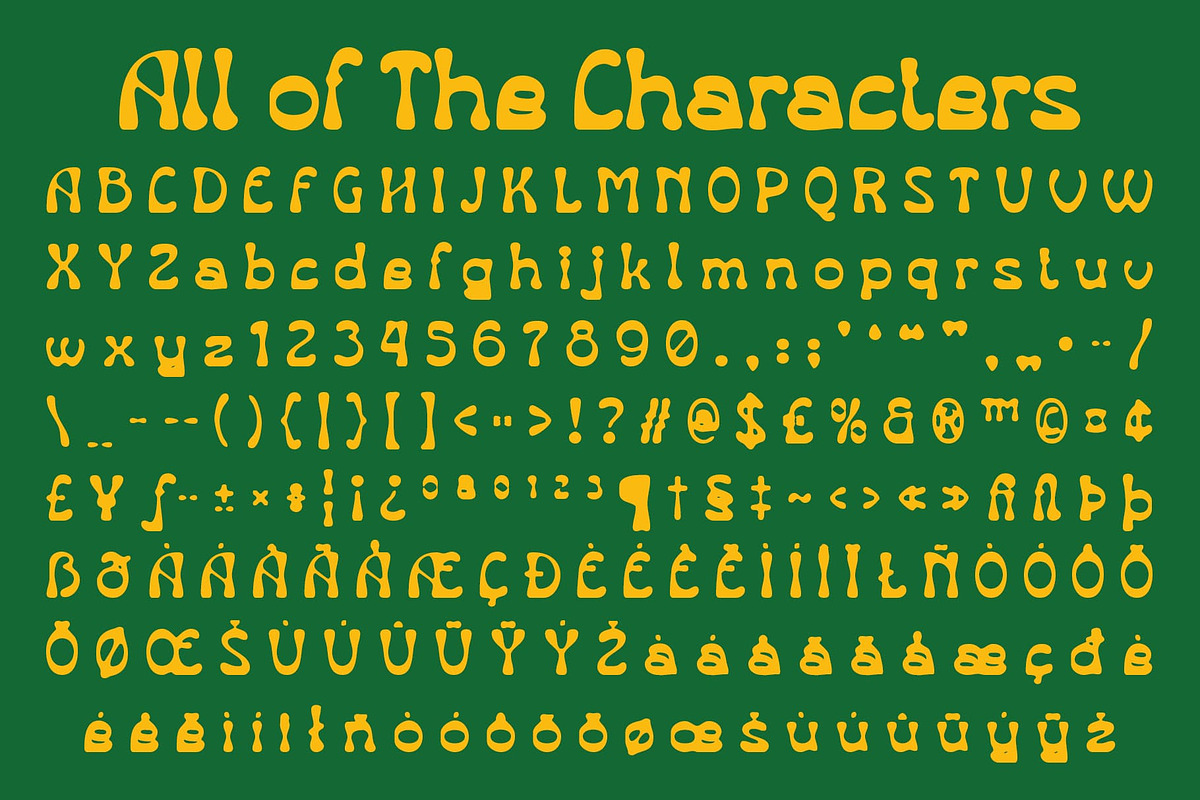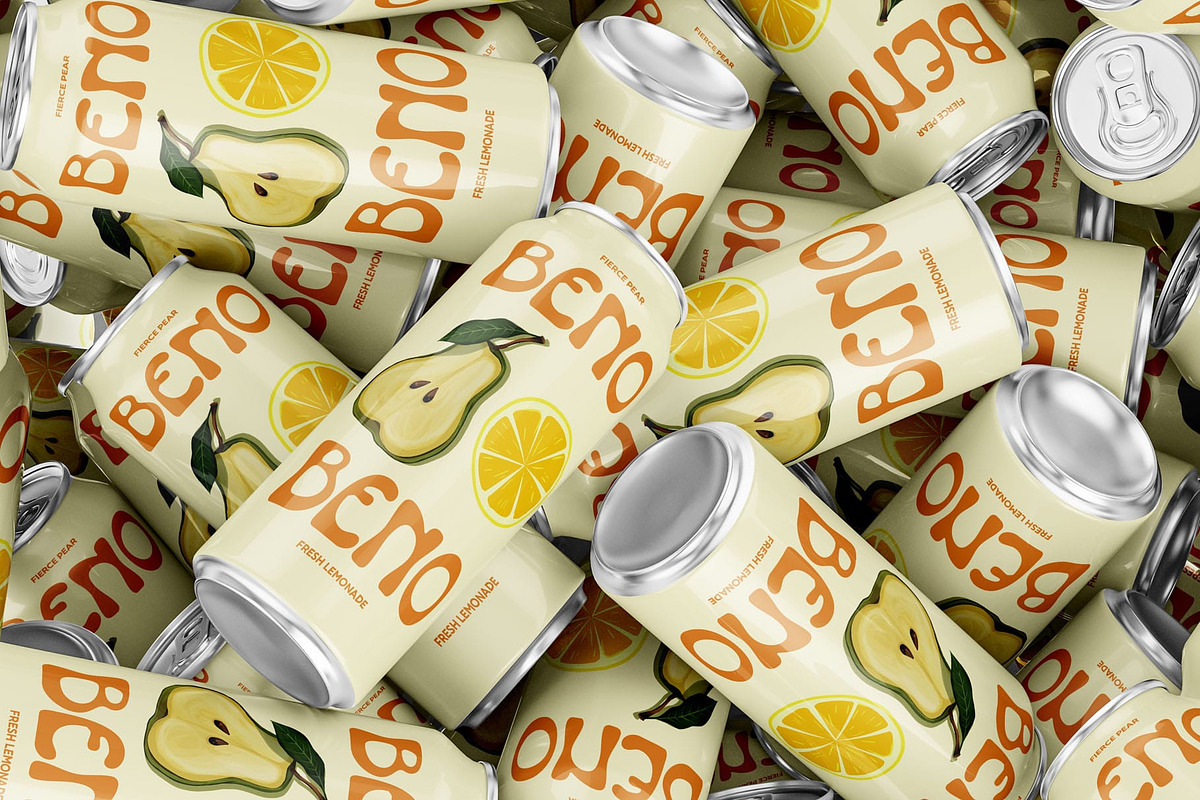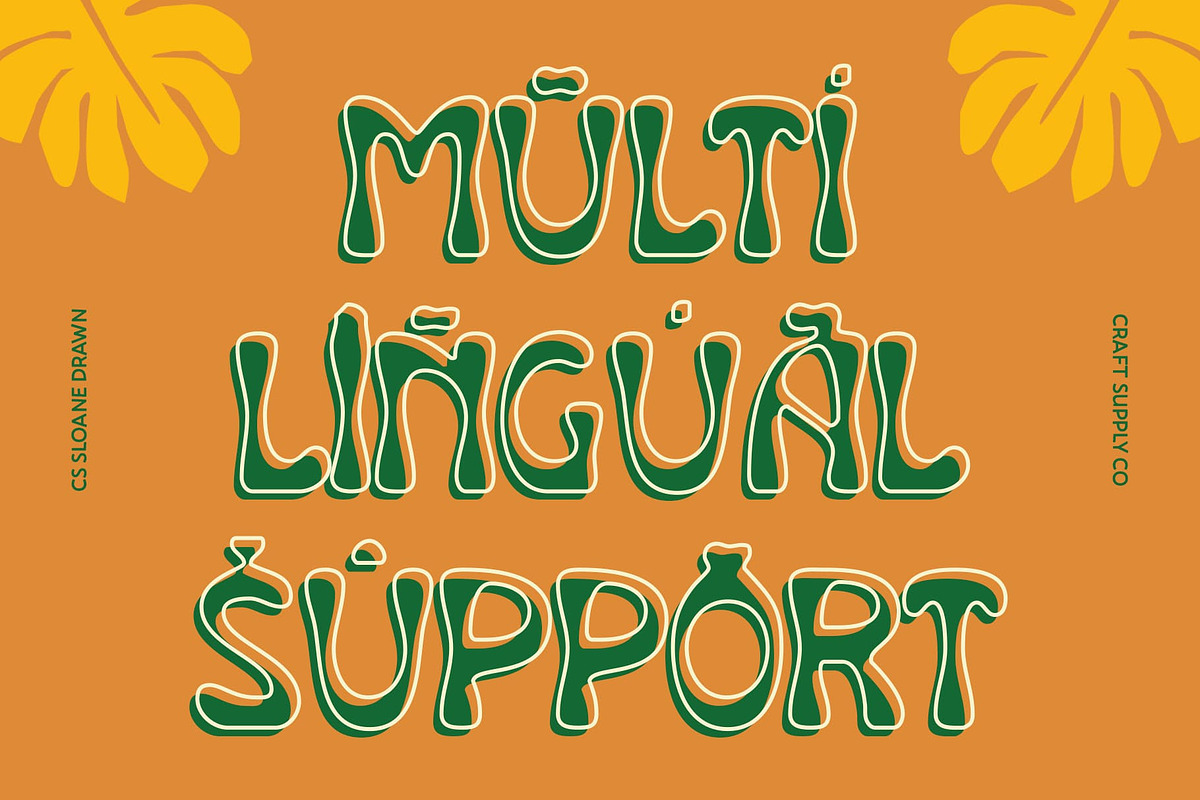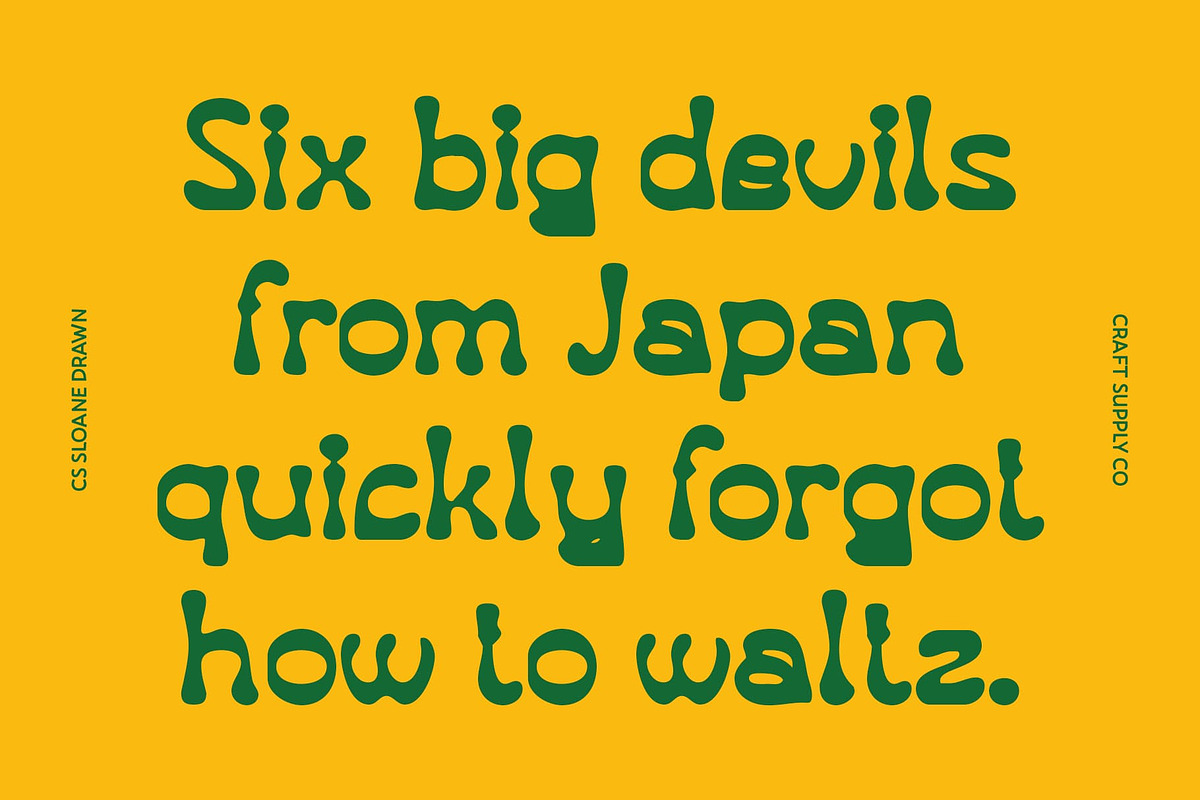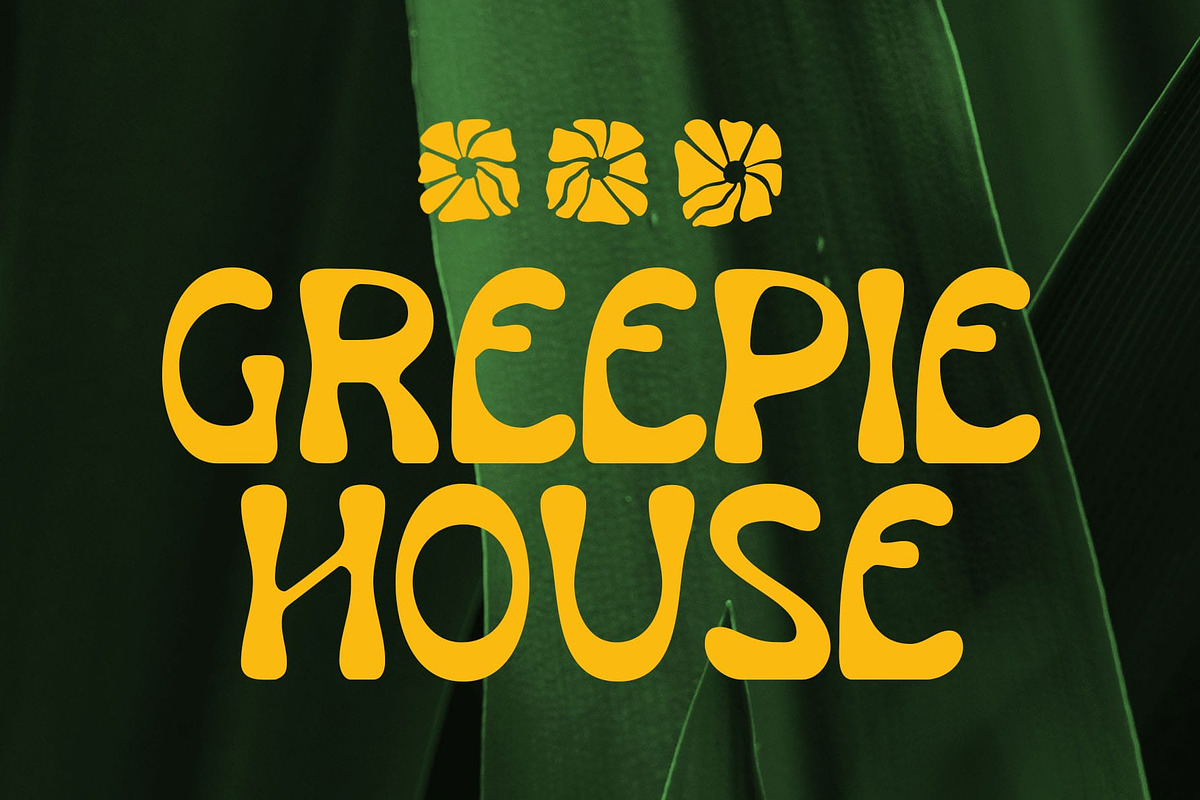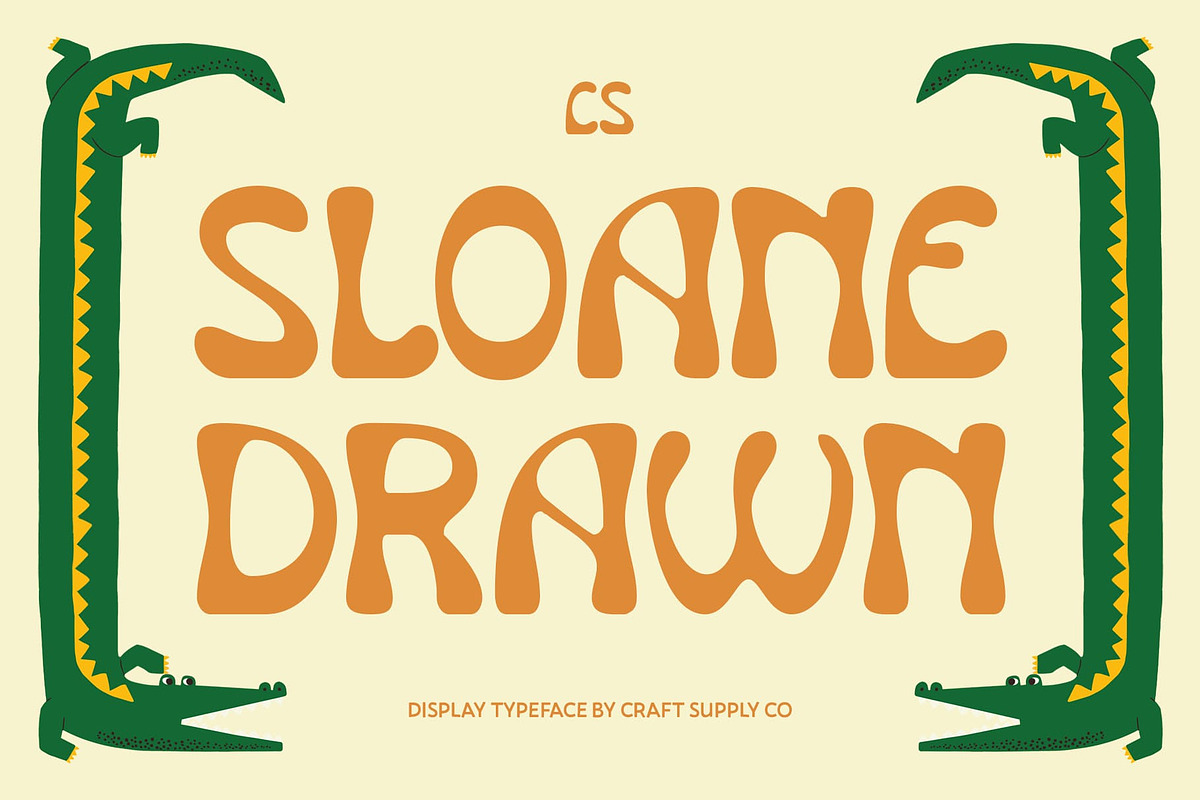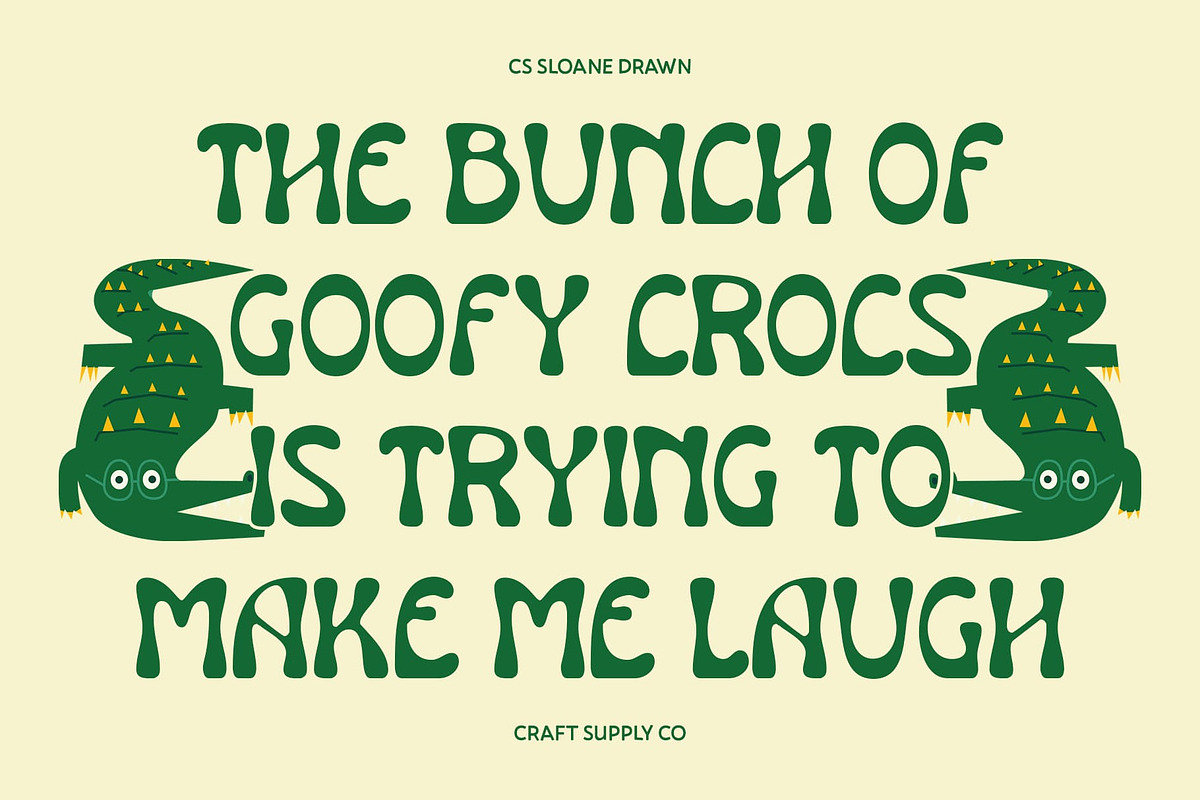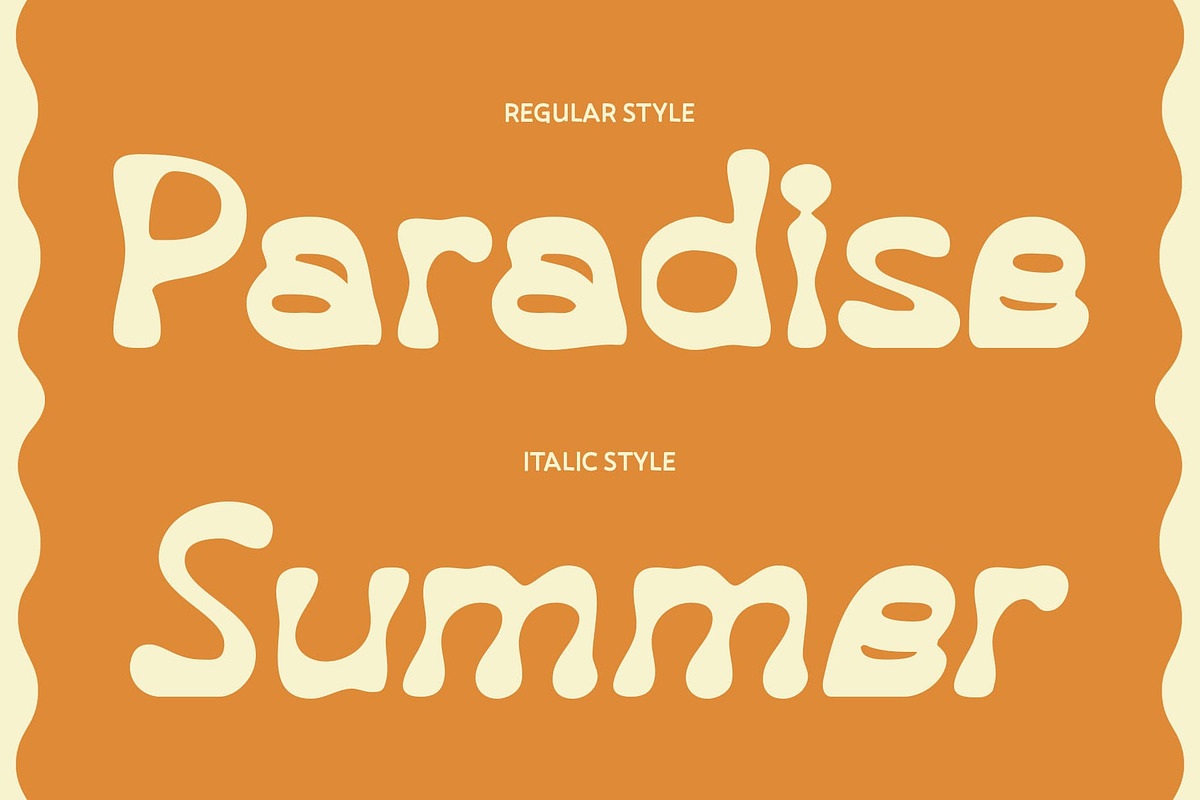
CS Sloane Drawn
CS Sloane Drawn – Reverse Contrast Font with Retro Handmade Charm, Rounded and Drawn Details
Bold Yet Approachable CS Sloane Drawn is a reverse contrast font that blends bold structure with approachable curves. Its rounded terminals soften the design, creating a friendly and inviting personality while still maintaining a strong display presence.
Nostalgic 90s Retro Vibe With its quirky proportions and retro-inspired charm, CS Sloane Drawn captures the playful energy of 90s design. The reverse contrast style gives it a unique typographic voice, perfect for projects that want to stand out with character and personality.
Hand-Drawn Expressiveness The drawn texture enhances the font’s nostalgic appeal, making it feel handmade and authentic. This expressive quality adds depth and individuality, ensuring each character feels alive and filled with creative energy.
Perfect for Nostalgic Branding From logos and posters to packaging and editorial layouts, CS Sloane Drawn is an ideal choice for branding that leans into retro fun. It’s bold, approachable, and full of handmade charm, making it versatile for both playful and expressive design projects.